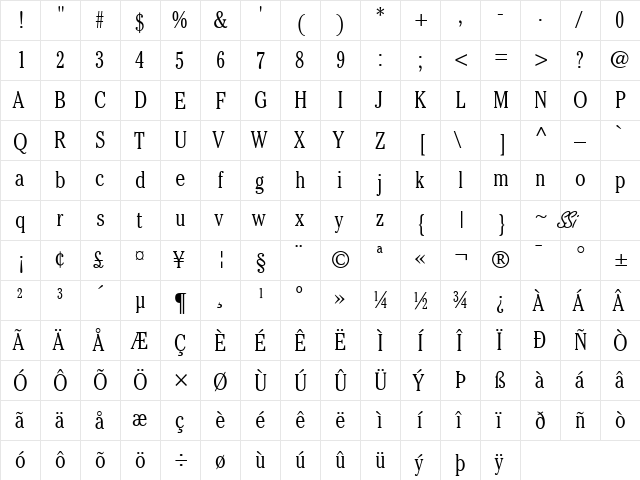
Cheltenham Light Condensed SSi Light Condensed Font Preview
Design Context for Cheltenham Light Condensed SSi Typeface
Cheltenham Light Condensed SSi offers clean, dependable letterforms without strong stylistic allegiance, making it a practical choice for designers who need flexibility. Its slender proportions lend an understated elegance to any composition. The condensed width makes it efficient for tight spaces without sacrificing legibility.